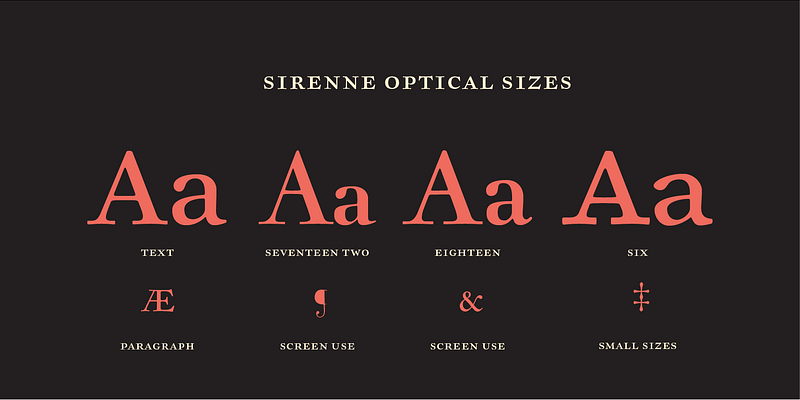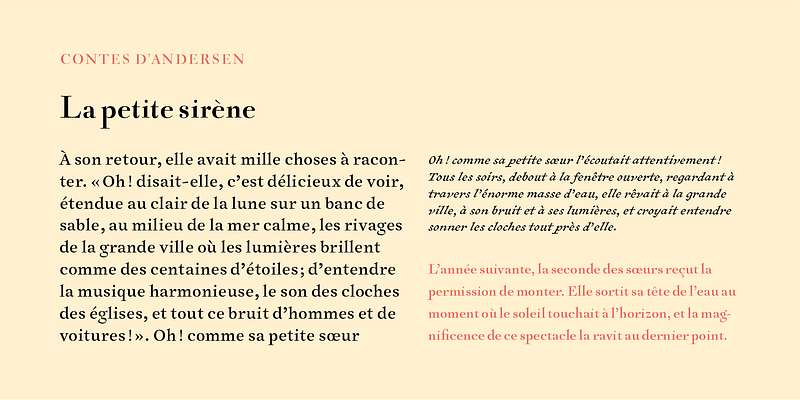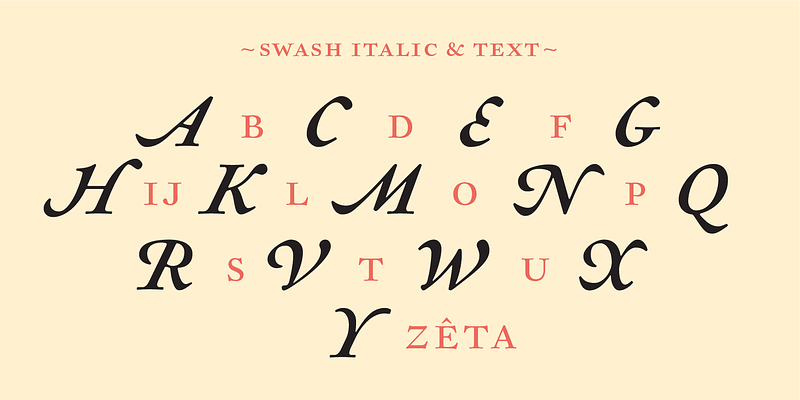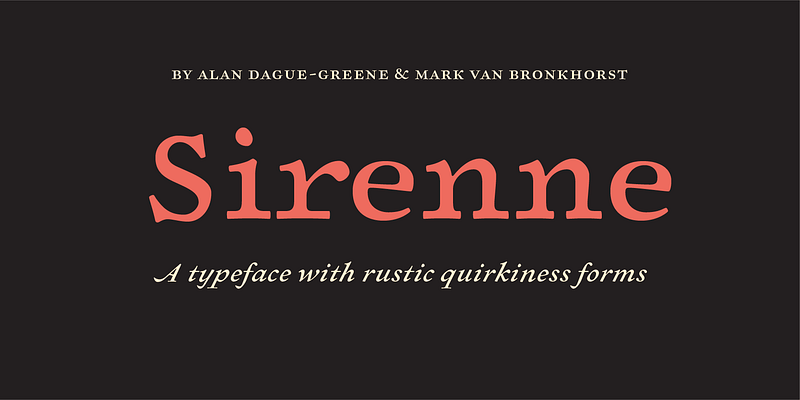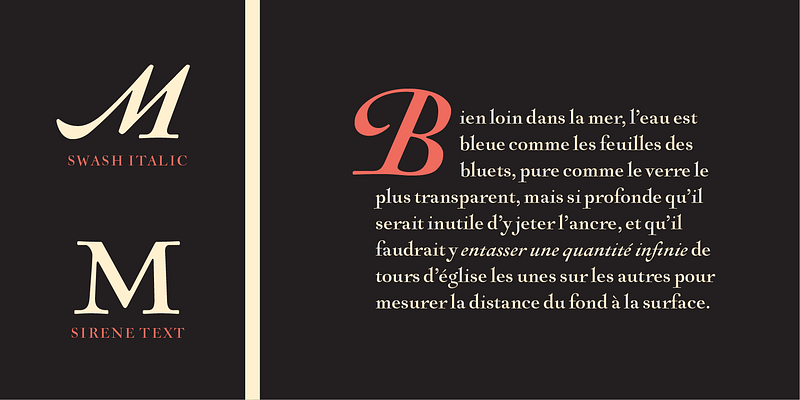
In the 18th century, the Dutch controlled what is now Indonesia (the so-called “Spice Islands”) as a colony. A Dutchman named Samuel Fallours, stationed on the island of Ambon, was busy making watercolors of local wildlife, mostly tropical fish. Because few Europeans had ever seen such incredible creatures depicted before, Fallours’ sketches were rather popular among the well-to-do, and he did well peddling copies of them.
Of course, no one back home would be able to tell if Fallours was careful and accurate in documenting these creatures. While his triggerfish looks a lot like a triggerfish, he adds a smiling face on its side for effect. Some of his illustrations are pure fiction. It is therefore not surprising that he might include a hard-to-believe creature in his collection of illustrations, and have quite a story to tell about its capture.
Fallours claimed to have observed a sirenne, or mermaid, in a tub of water in his home for four days, until it died. Hard to believe, yes, but Fallours, and a number of his colleagues documented his encounter in detail, including the sounds the mermaid made (it cried like a rat) and the form of its excrement (like that of a cat). It is possible Fallours made the whole thing up to enhance his notoriety. But both his story and his detailed drawing of the Sirenne, it appears, were accepted as fact.
Meanwhile, back in Amsterdam, Louis Renard, a noted publisher of maps, published Poissons, Ecrevisses et Crabes, de Diverses Couleurs et Figures Extraordinaires (Fish, Crayfishes and Crabs, of Diverse Coloration and Extraordinary Form) in 1719, based on Fallours’ wonky illustrations. Renard included the mermaid in this natural history book, publishing Fallours’ story as fact.
What does this have to do with a typeface?
The artisan who engraved Renard’s book — likely a map engraver — had a distinctive style of lettering that was used on the descriptive captions for the many fishes (and mermaid) in Renard’s book. The plates used to print the illustrations were copper, the letterforms were hand-engraved (not a typeface). The engraved prints were then colored by hand.
The folks at MVB Fonts found the distinctive quirks of the roman letterforms and the eccentric stress of the italic interesting enough to embark on developing digital fonts based on the engraved samples. As the captions were hand-lettered, there was a great degree of variation, making a direct “revival” impossible, so Alan Greene interpreted the characteristics of the letterforms into a workable typeface design.
The challenge was to retain a rustic quirkiness to the forms, yet have a typeface that was useful for more than display. The solution was to make optical sizes. The “Six” faces are full of character, but strong and open for clarity at small sizes. The design of the “Text” faces is more subtle, so that they can be used for passages of text, but retain the feel of their model. MVB Sirenne “Eighteen” and “Seventy Two” are for display use.